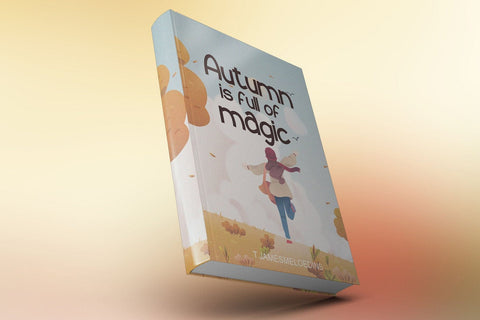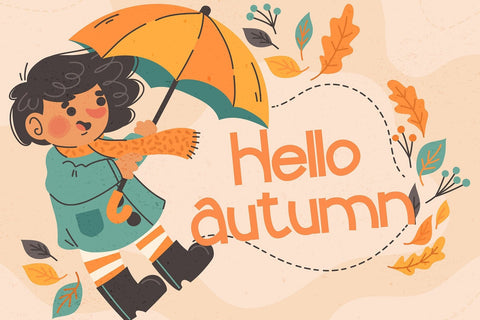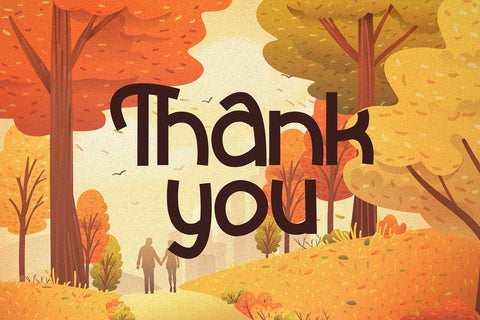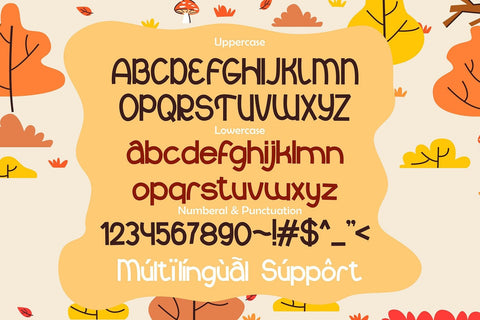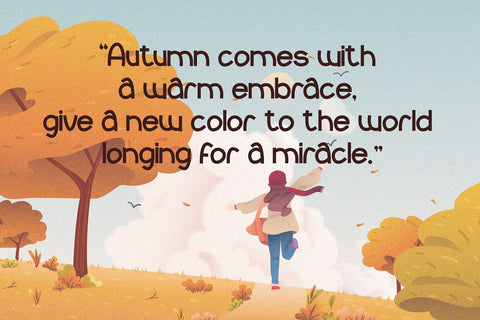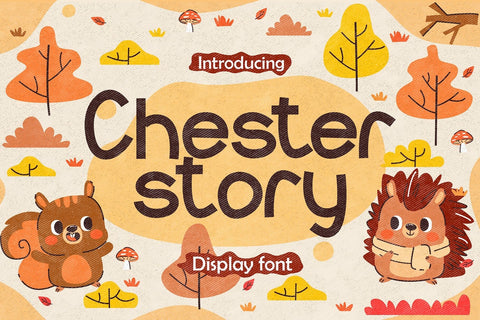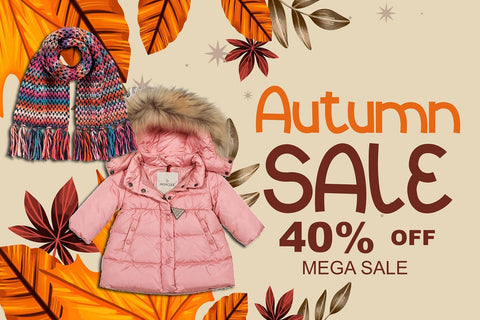
Chester Story - Cute Display font
"Chester Story" is a cute display font perfect for projects related to children or school themes. Its adorable and playful letterforms bring a whimsical and friendly touch to your designs. Whether for posters, book covers, or educational materials, this font creates a delightful and engaging typography that captures the attention of young minds.